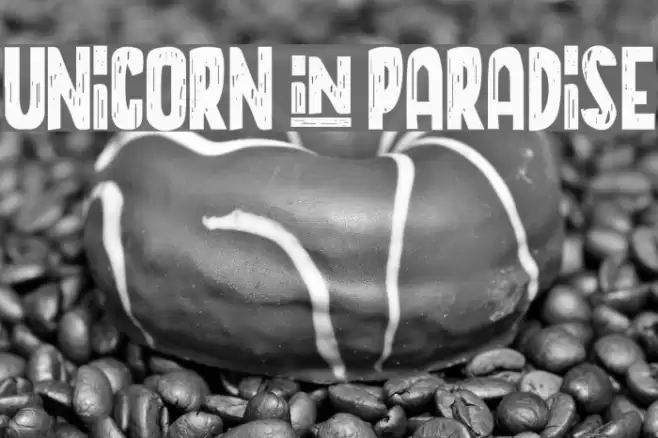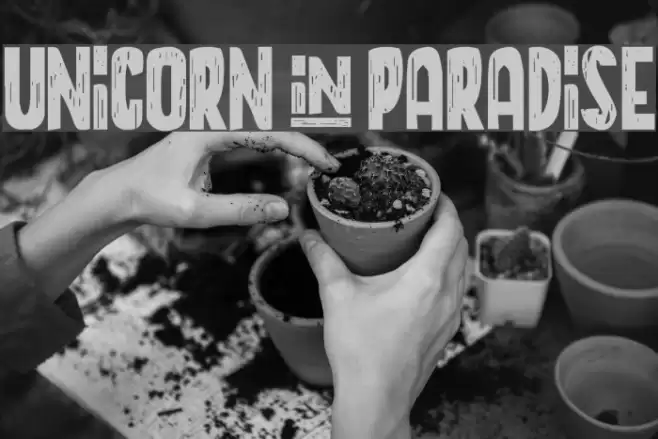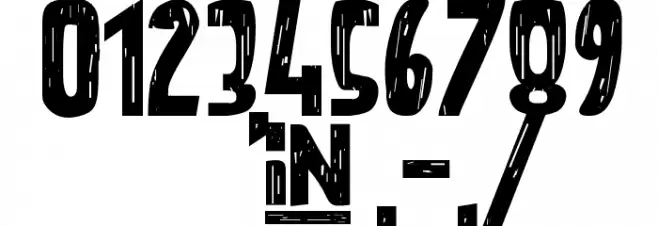
UNICORN+PARADISE Font
UNICORN+PARADISE Description
This font features a bold, distressed style with a unique, textured appearance that gives it a vintage, worn look. The characters are tall and narrow, with a slightly condensed width, adding to its striking and impactful presence. The uppercase letters are particularly prominent, with a rugged texture that suggests a hand-crafted or printed feel. The numbers and special characters maintain this distressed aesthetic, ensuring consistency across all glyphs. This font's boldness and texture make it ideal for projects that require a strong visual impact.
A bold, distressed font with a vintage, textured style from Uncategorized fonts.
- Proposed Projects: Ideal for posters, branding, album covers, and any design needing a vintage or rugged aesthetic.
- Overall Style: Vintage